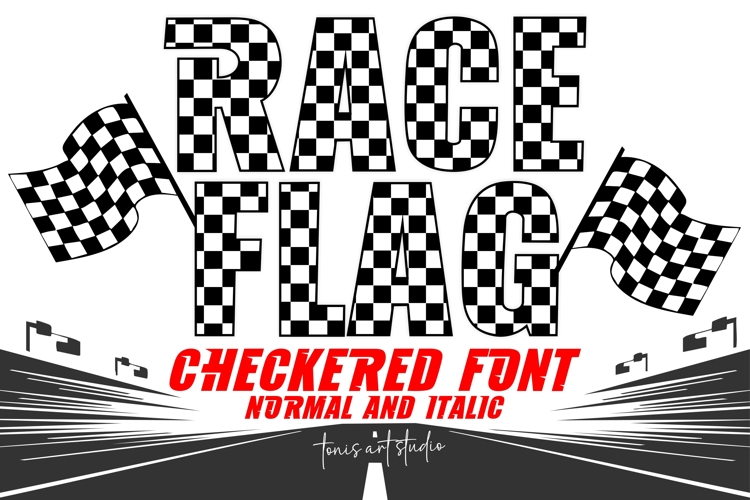
Race Flag Font | Checkered Font | Racing Alphabet Letters
Start your engines with the Race Flag Font Duo, a bold and energetic typeface inspired by the thrill of the racetrack. With its checkered letter design and dynamic two-style family (Normal & Italic), this font captures the speed, motion, and adrenaline of racing culture. Perfect for projects that need a striking, competitive look, Race Flag delivers power and excitement in every character.
The checkered fill pattern makes each letter pop with authentic racing vibes, while the italic style adds even more movement, as if your words are flying toward the finish line. Whether you’re designing sports-themed apparel, racing team logos, event posters, signage, or Cricut and Silhouette projects, this font brings high-octane energy that commands attention.
Designed for makers, crafters, and creators, the Race Flag Font Duo is perfect for T-shirt graphics, sports merchandise, car decals, pit stop signs, mugs, wall art, and any project that needs the adrenaline rush of the track. The bold outline and detailed checkered texture are built to stand out, whether in print or digital.
Take your designs across the finish line with Race Flag – the ultimate font for speed, victory, and unstoppable creativity